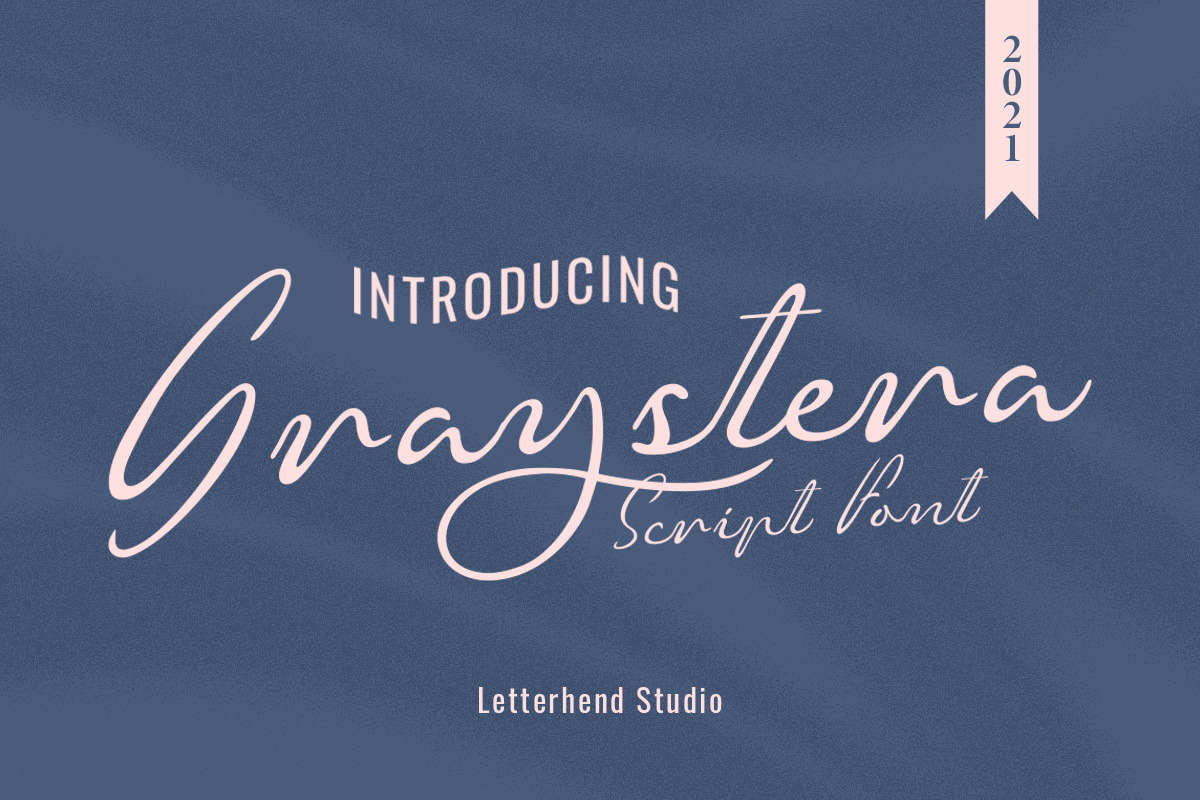
Graystera - Script Font
Introducing, Graystera Script. A Beautiful and classy script. This font perfectly made to be applied especially in logo, and the other various formal forms such as invitations, labels, logos, magazines, books, greeting / wedding cards, packaging, fashion, make up, stationery, novels, labels or any type of advertising purpose.
- alternates
- swashes